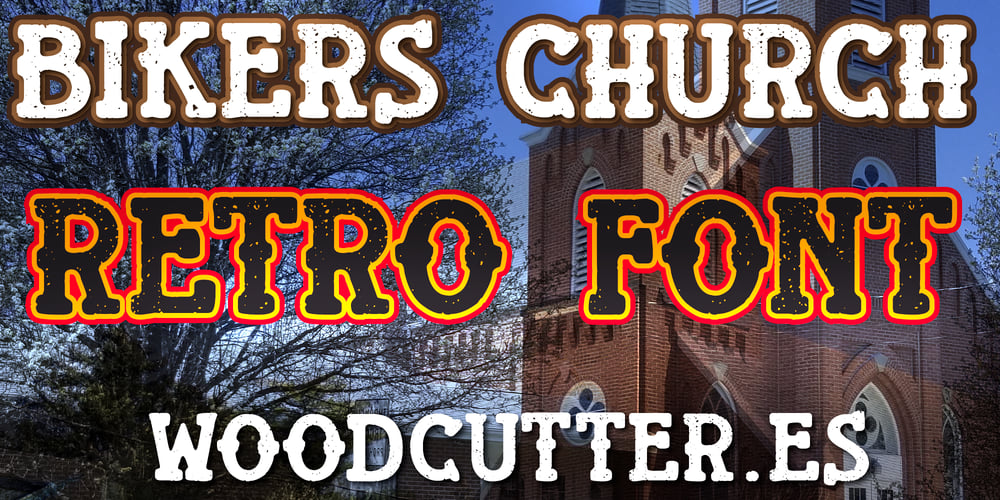
Bikers Church Font Family was designed by Jordi Manero and published by Woodcutter. Bikers Church contains 1 styles and family package options. “Bikers Church” is a retro-style font with a tough and worn-out look, perfect for projects that need a robust and authentic touch. It features uppercase letters with accents, each showing signs of wear and tear, as if they have withstood the test of time and the harshness of the road. Ideal for posters, logos, and designs related to biker culture, where conveying a sense of strength and rebellion is key.